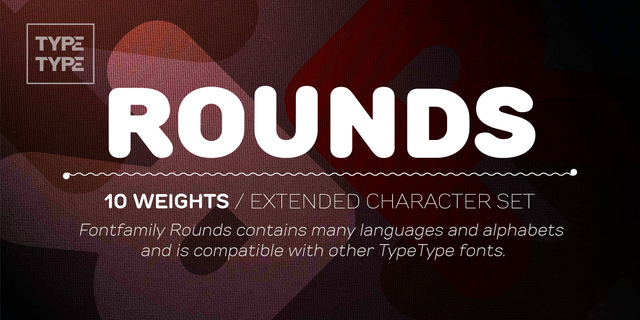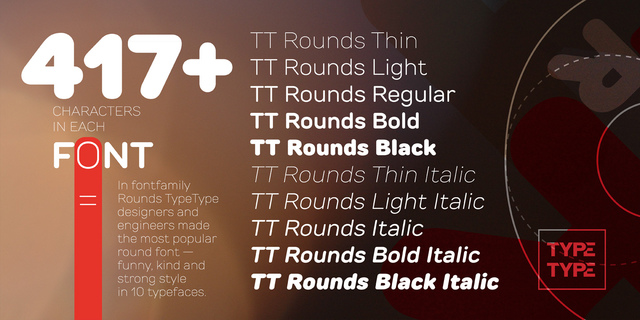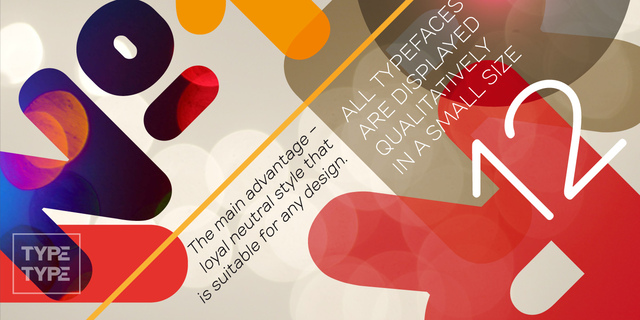
TT Rounds (10 fonts)
About TT RoundsRounds — fontfamily with a very kind and gentle temperament. Most popular typefaces formula: Thin, Light, Regular, Bold, Black and Italics. Stylistic features of Rounds fonts — rounded elements. All fonts are made so that they can be used as a short text (eg logos and headers), and in the long text sets (such as a paragraph of text or newspaper article). Typeface designed by Ivan Gladkikh in TypeType studio in 2014.